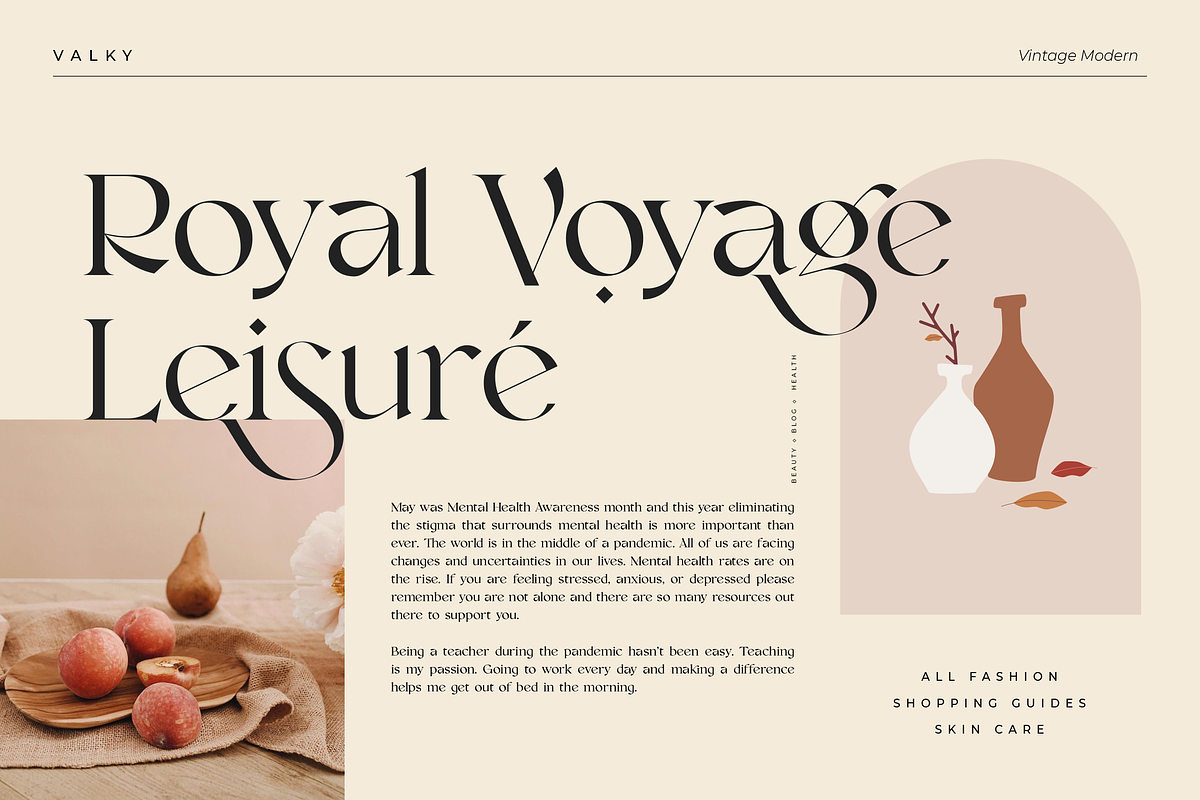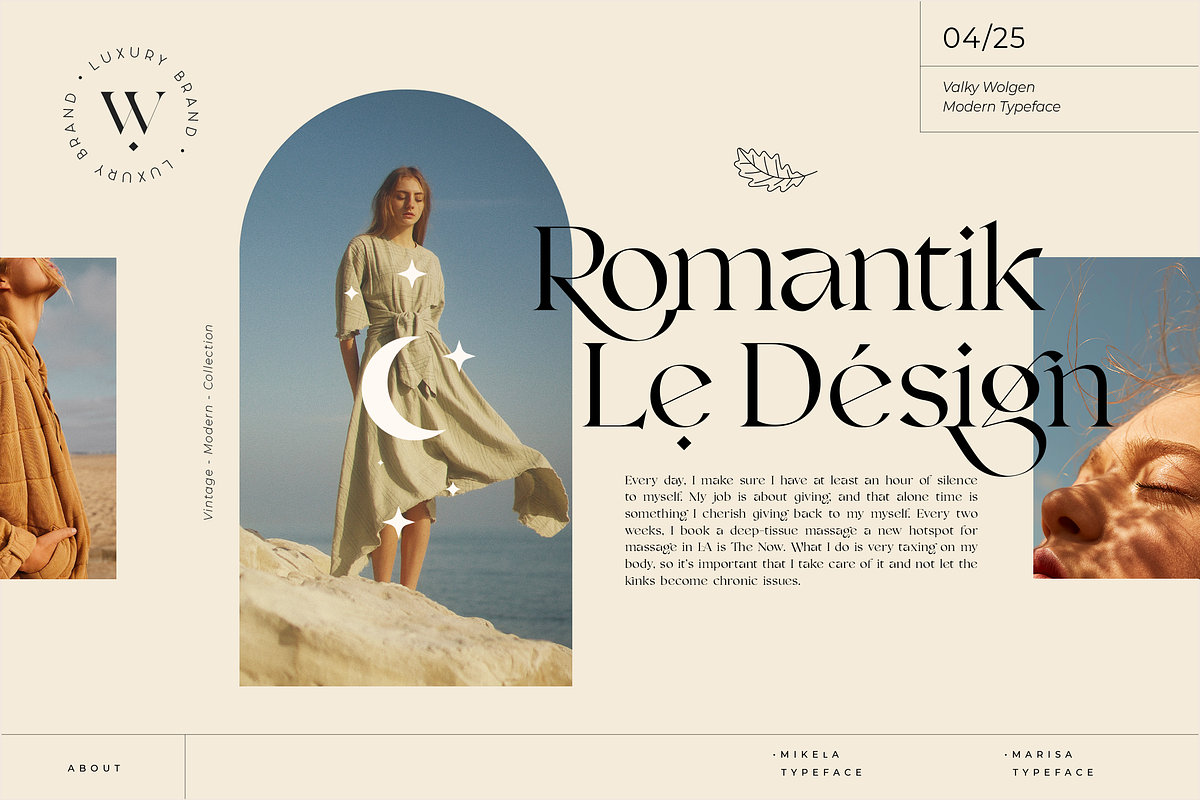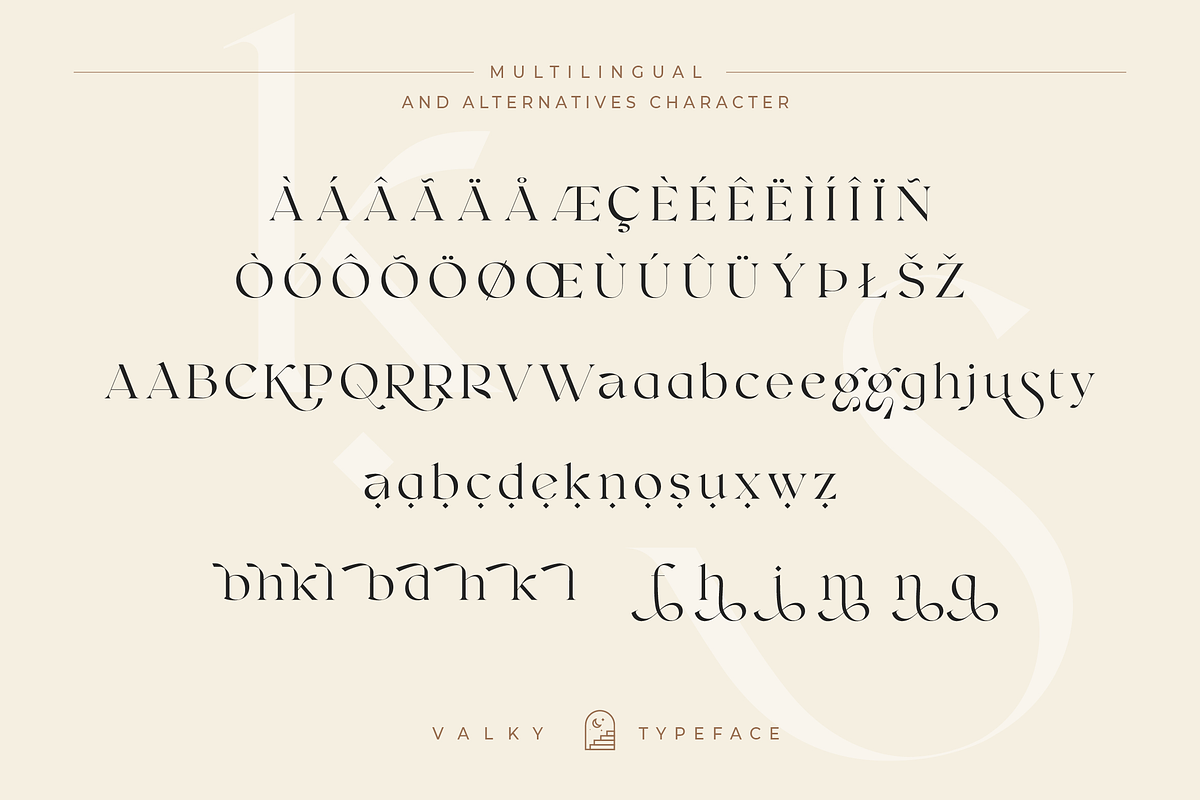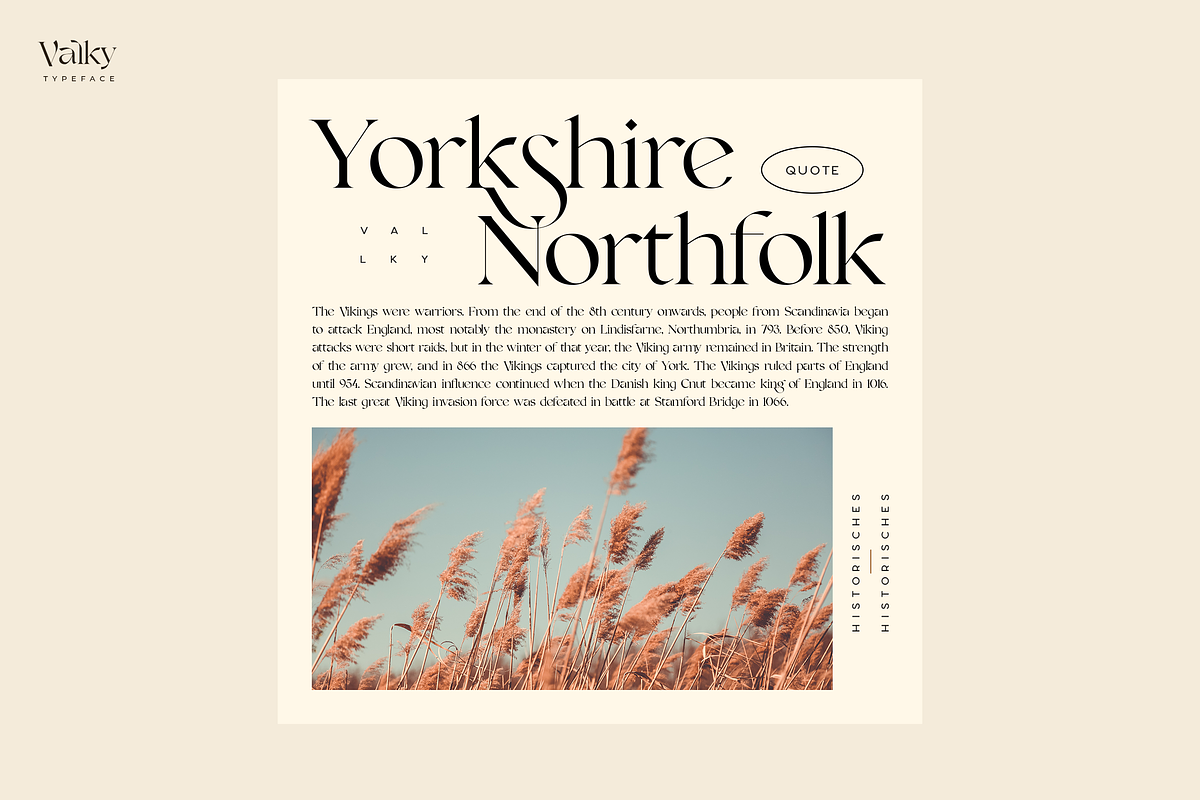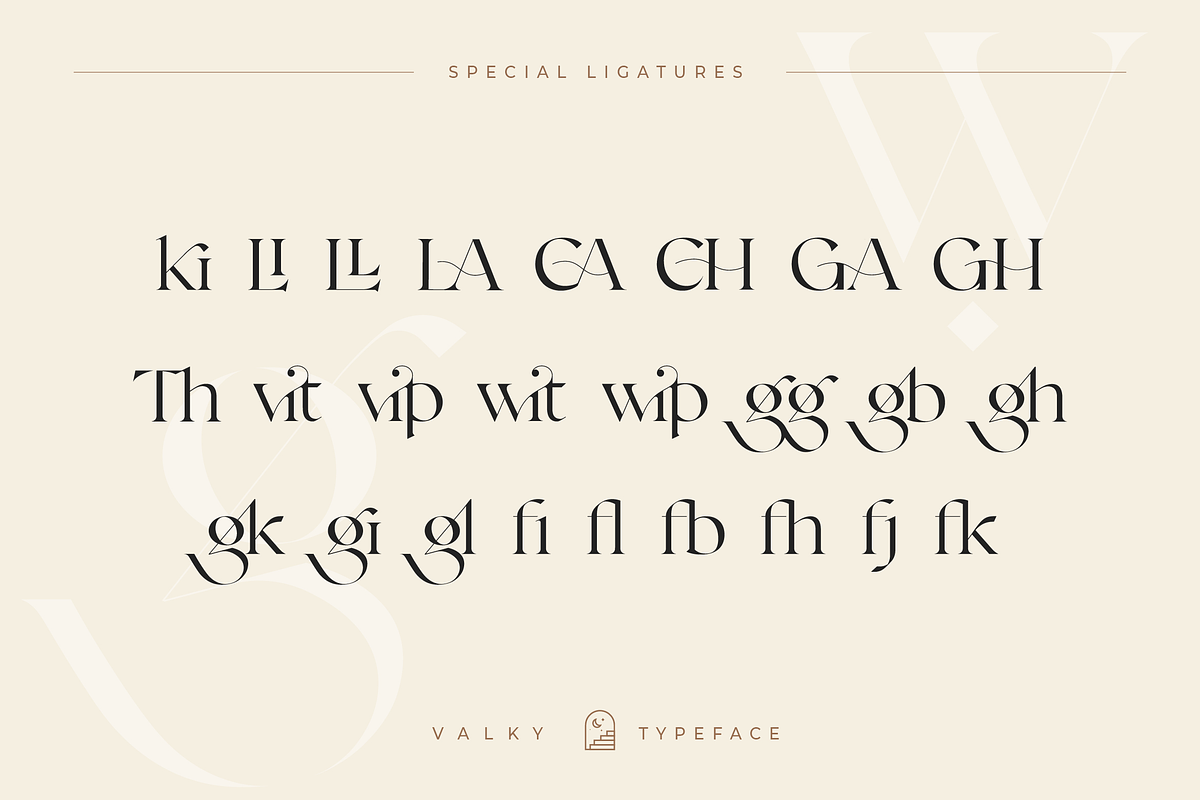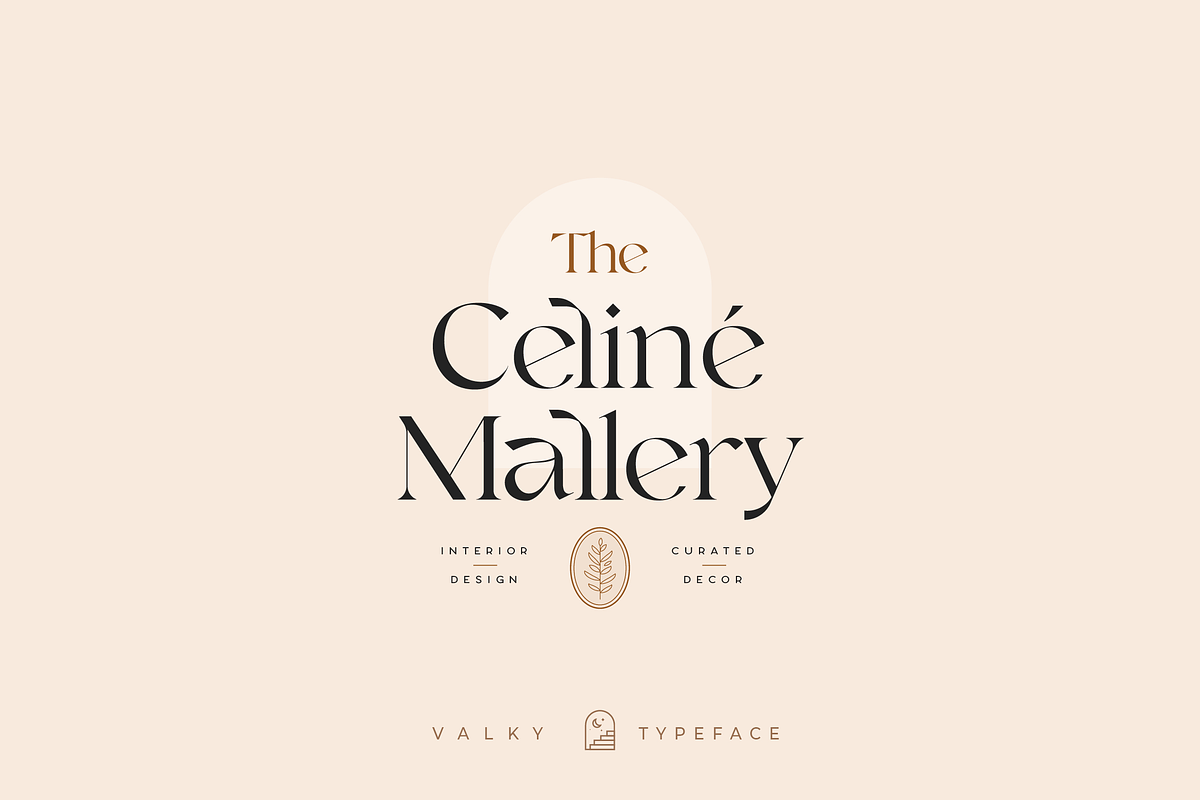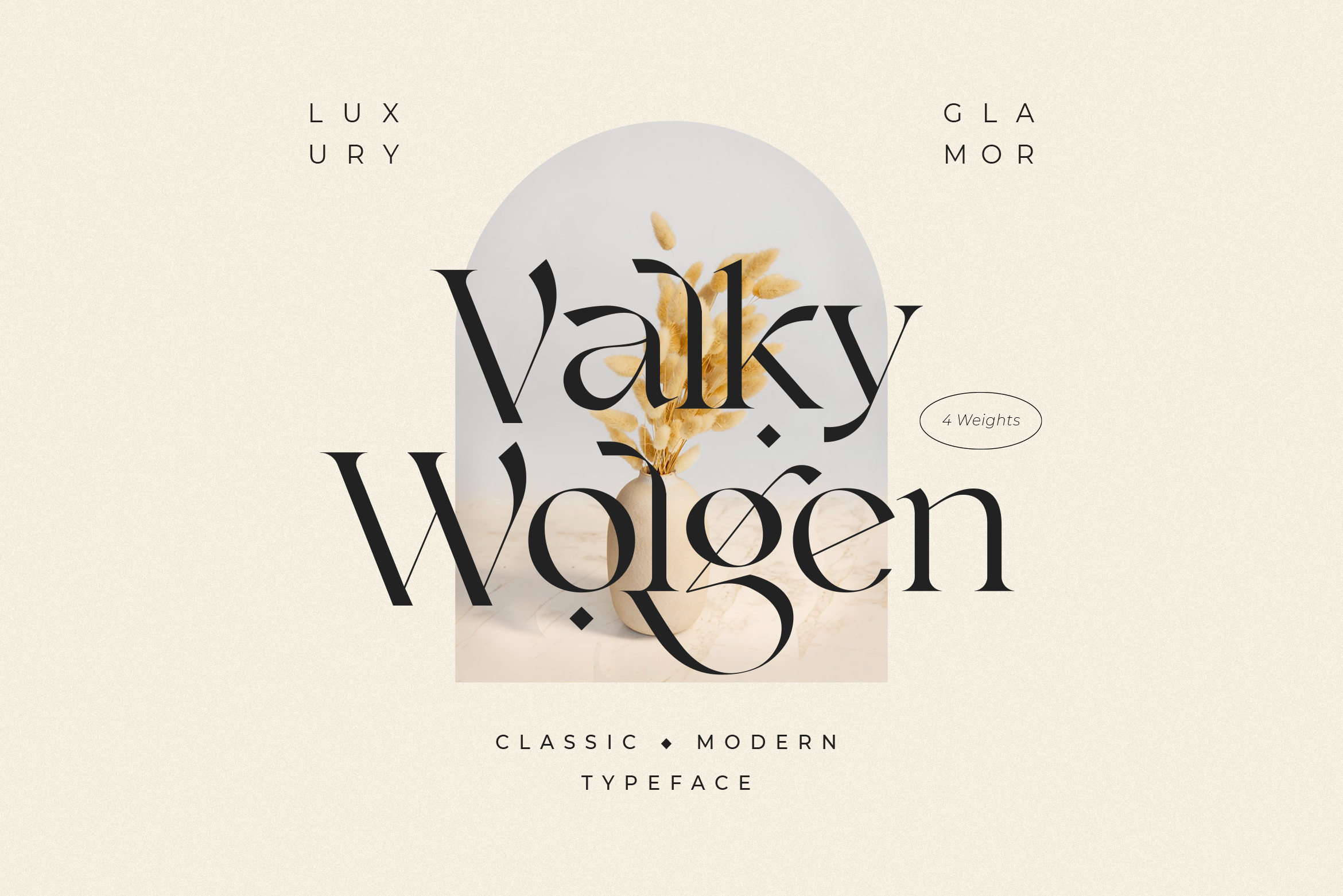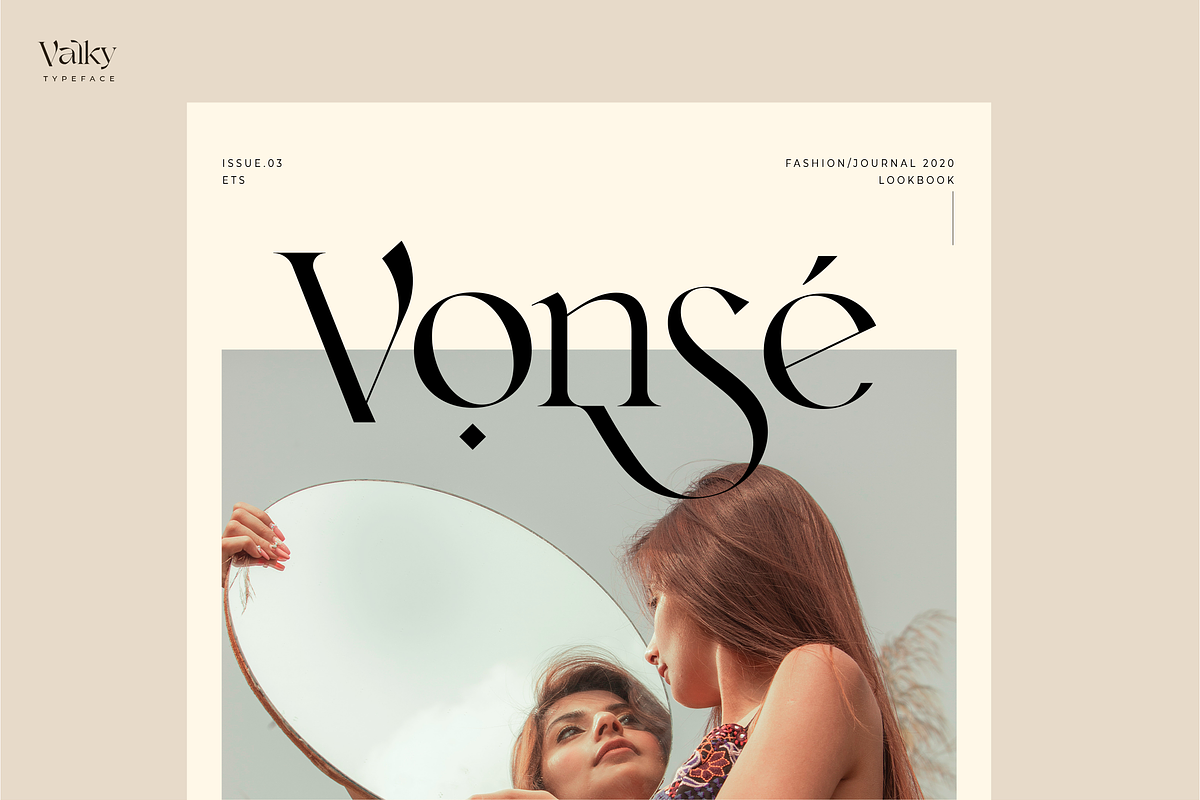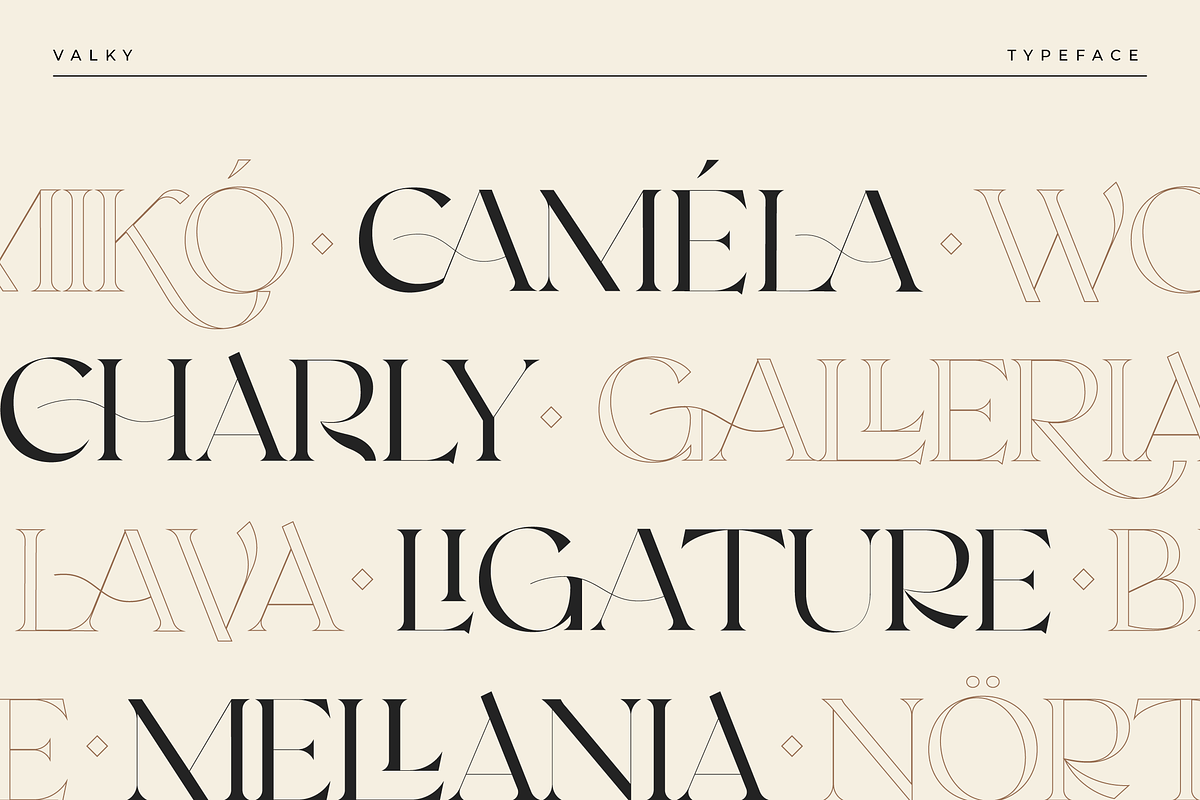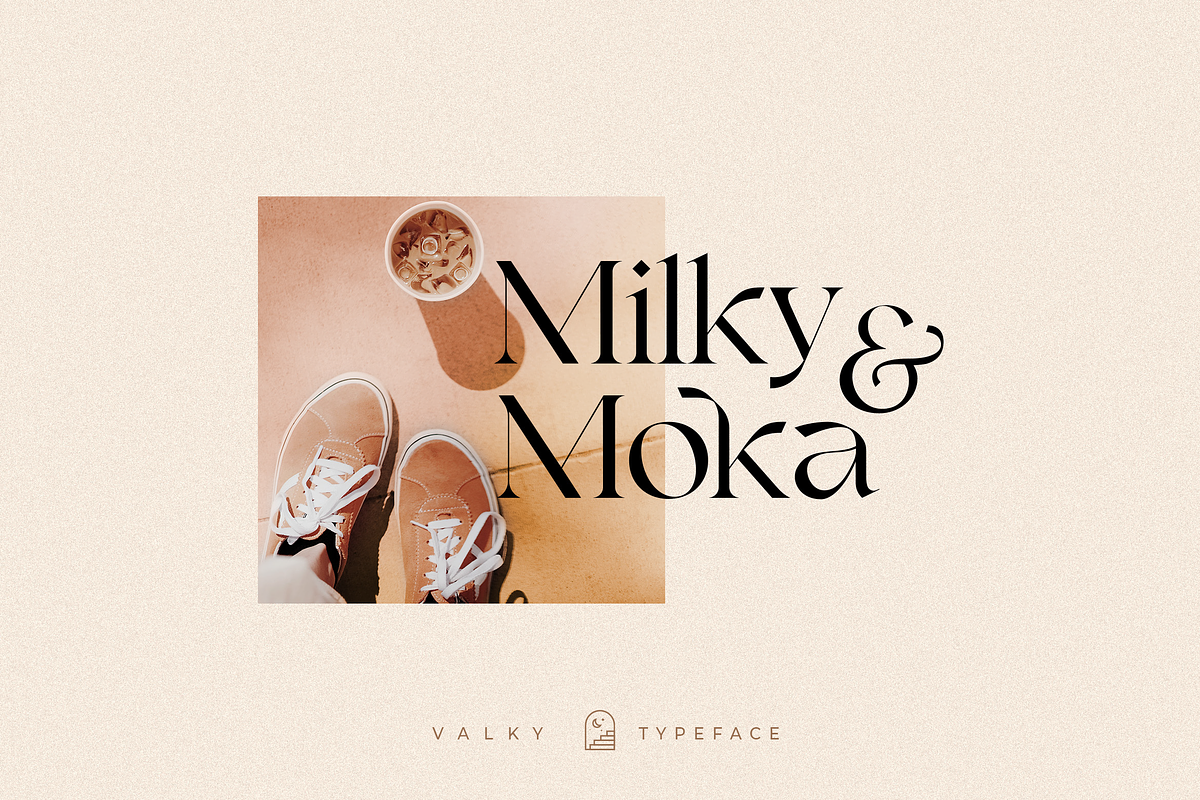
Valky Classic Modern Typeface
Valky is a Fancy Modern vintage serif typeface with beautiful ligatures, tons of special alternative glyphs, ornament and multilingual support. It's a very versatile font that works great in large and small sizes. Perfect for editorial projects, Logo design, Clothing Branding, product packaging, magazine headers, or simply as a stylish text overlay to any background image.
4 Weights font
Lowercase and Uppercase
Stylistic Alternates & Ligatures
Accented characters
Multiple Languages Supported